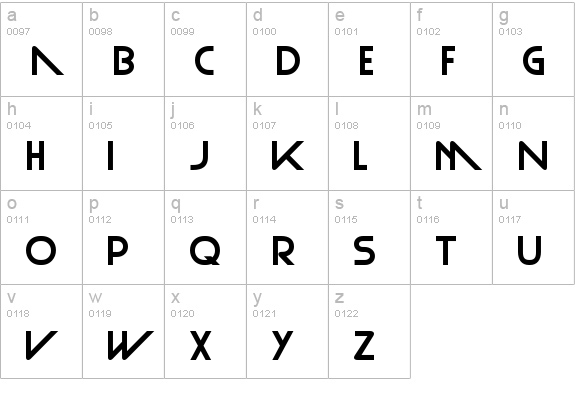
Plain Cred Font Details
Introducing Plain Cred font, a versatile and modern typeface that exudes elegance and sophistication. With its clean lines and contemporary design, this font is the perfect choice for any project that requires a touch of professionalism and refinement. Plain Cred font offers a wide range of stylistic options, allowing you to customize and personalize your text to suit your specific needs. Whether you're designing a logo, creating a website, or crafting eye-catching marketing materials, this font will elevate your work to new heights. What sets Plain Cred font apart is not only its impeccable design but also its accessibility. We believe that great design should be available to everyone, which is why Plain Cred font is freely available to download at FontsMarket.com. This means that you can add this stunning font to your collection without any cost, making it a valuable asset for both personal and commercial projects. Designed with precision and attention to detail, Plain Cred font ensures that your text stands out and leaves a lasting impression on your audience. Its legibility and readability make it an ideal choice for both print and digital applications. Whether you're designing a book cover, creating a presentation, or crafting a social media post, this font will enhance the overall aesthetic and impact of your work. With its timeless appeal and versatility, Plain Cred font is perfect for a wide range of projects and purposes. From branding and advertising to editorial design and beyond, this font will add a touch of sophistication and professionalism to any project. In conclusion, Plain Cred font is a must-have for any designer or creative professional looking to elevate their work. Its sleek design, extensive customization options, and free availability at FontsMarket.com make it an invaluable addition to your font library. Download Plain Cred font today and unlock a world of endless possibilities for your design projects.